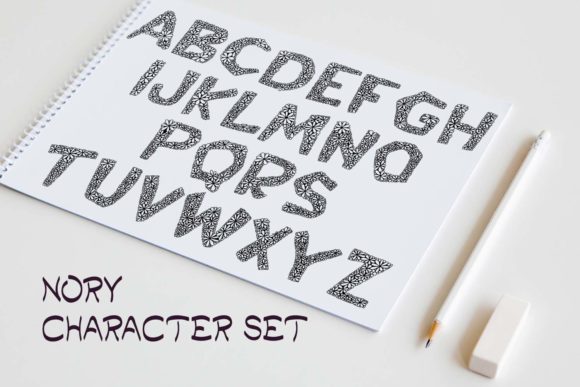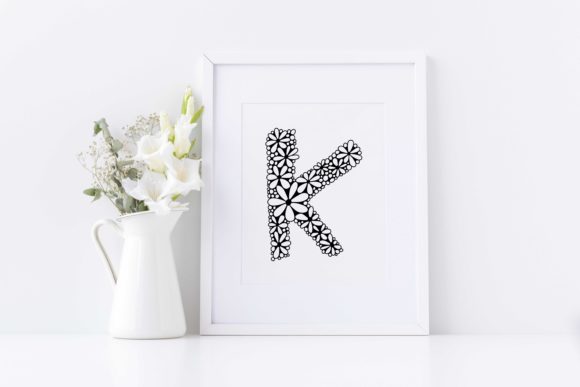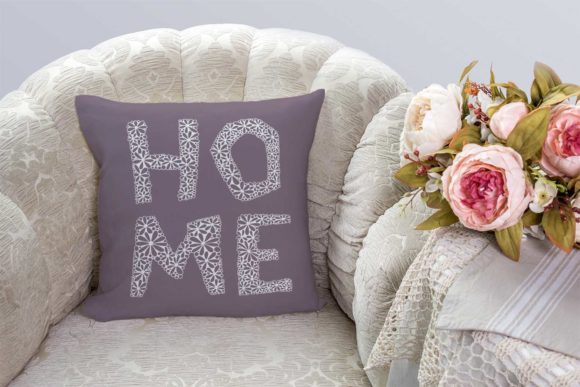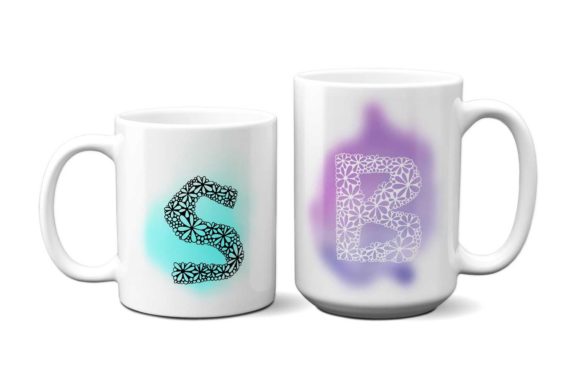
Introduction to Nory Font Font
Fonts play a crucial role in design, and the Nory Font font is a typeface that brings both character and versatility to any project. Whether you’re working on a branding project, a website, or a print design, the Nory Font font offers a unique style that can elevate your work.
Nory is a unique and beautiful decorative font, featuring flower ornaments.
Whether youβre looking for fonts for Instagram or calligraphy scripts for DIY projects, this font will turn any creative idea into a true piece of art .
The Nory Font font is more than just a typeface β it’s a design tool that helps you communicate your message with style and clarity. Its unique character set and versatile design make it suitable for a wide range of applications, from elegant invitations to bold headlines.
With its carefully crafted letterforms and balanced proportions, the Nory Font font ensures readability and visual appeal across all mediums.
The Nory Font font stands out with its unique design, exceptional readability, and versatility across various design applications.